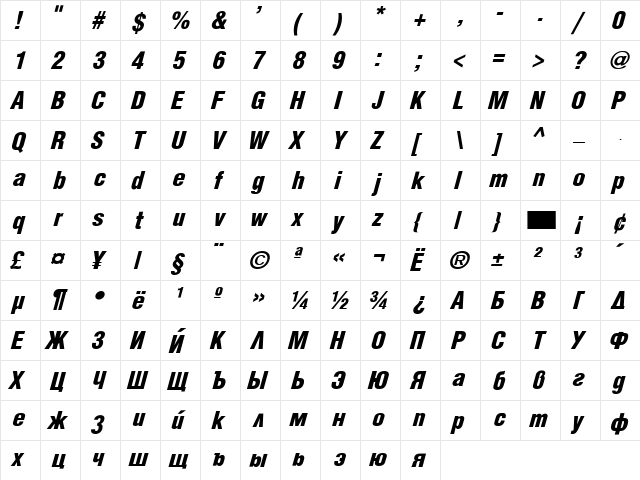
Apric BI Black Ital
Design Context for Apric BI Typeface
Apric BI takes a measured approach to typography — its balanced proportions and neutral character make it a reliable workhorse for both digital and print work.